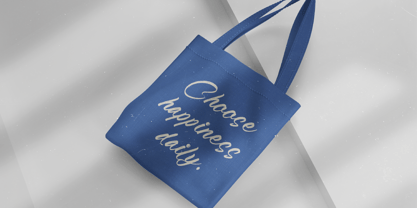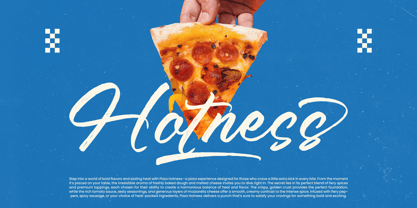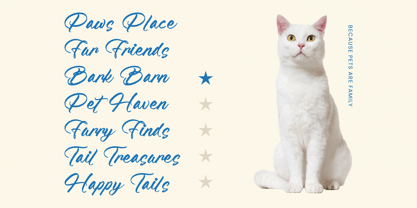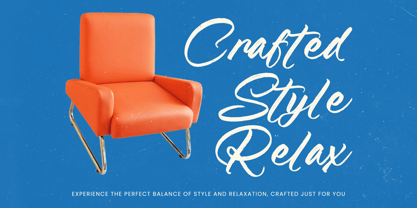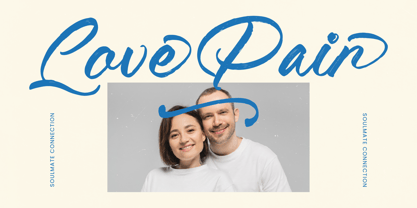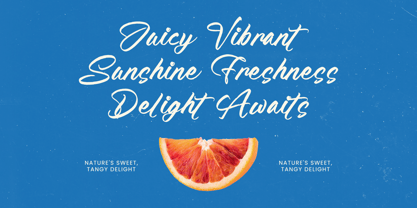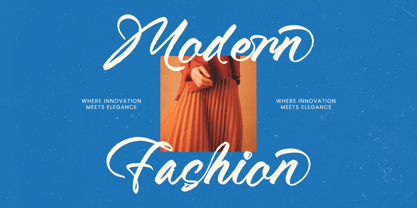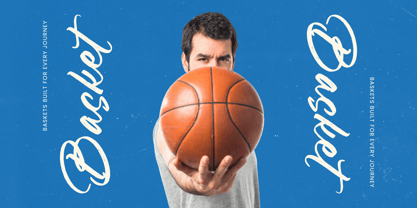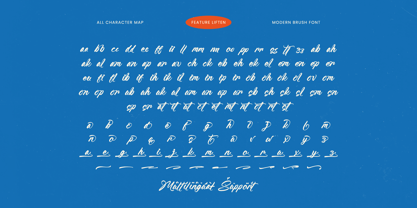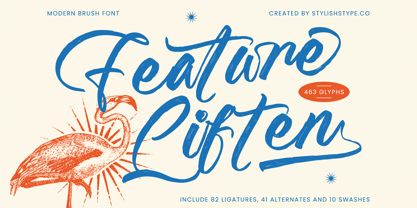
Feature Liften
by Stylishtype Studio
The Feature Liften Font Family was designed by Heru Utama Putra and published by Stylishtype Studio. Feature Liften contains 2 styles and family package options.
Feature Liften - Modern Brush Font , from Stylishtype, Suitable for any projects such as: logos, branding projects, homeware designs, product packaging, mugs, quotes, posters, shopping bags, t-shirts, book covers, name card, invitation cards, greeting cards, label, photography, watermark, special events, and all your other luxury and beautiful projects that need a Luxury Script taste.